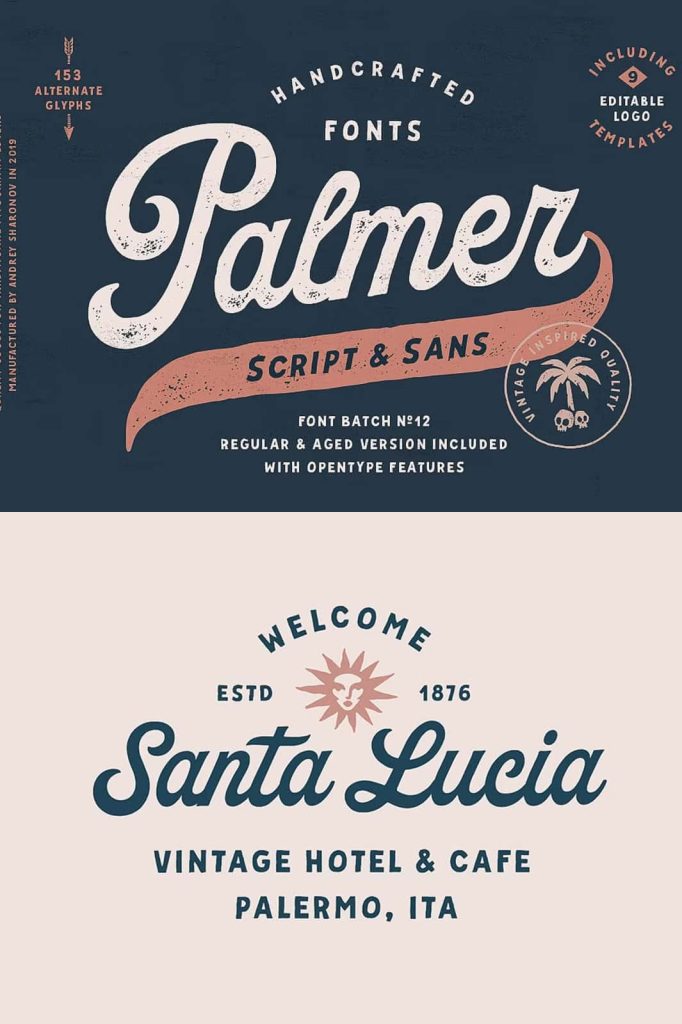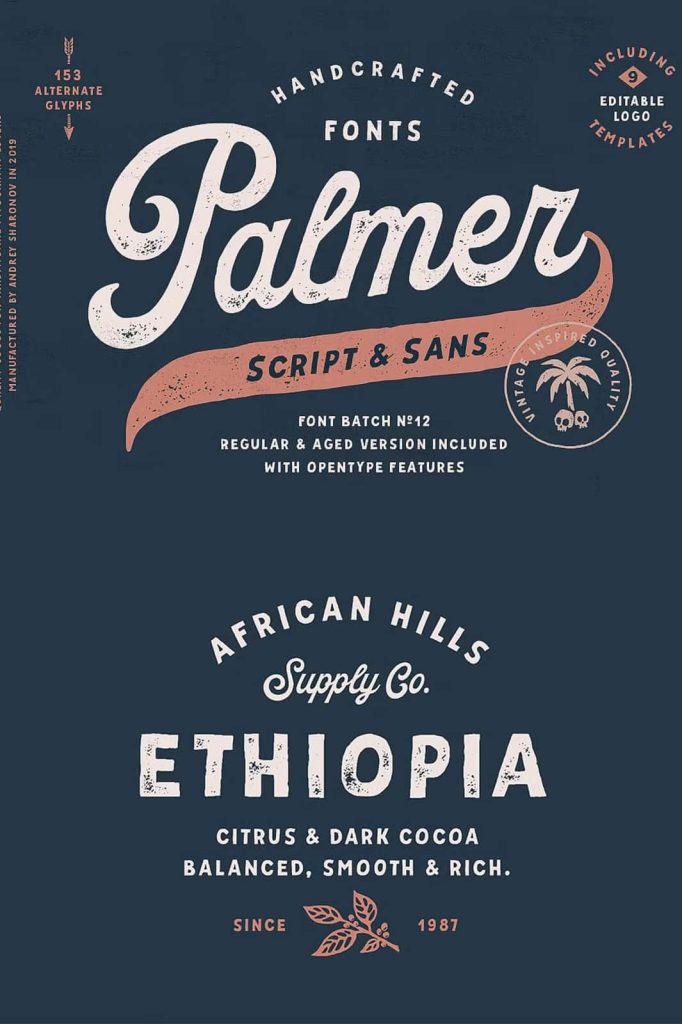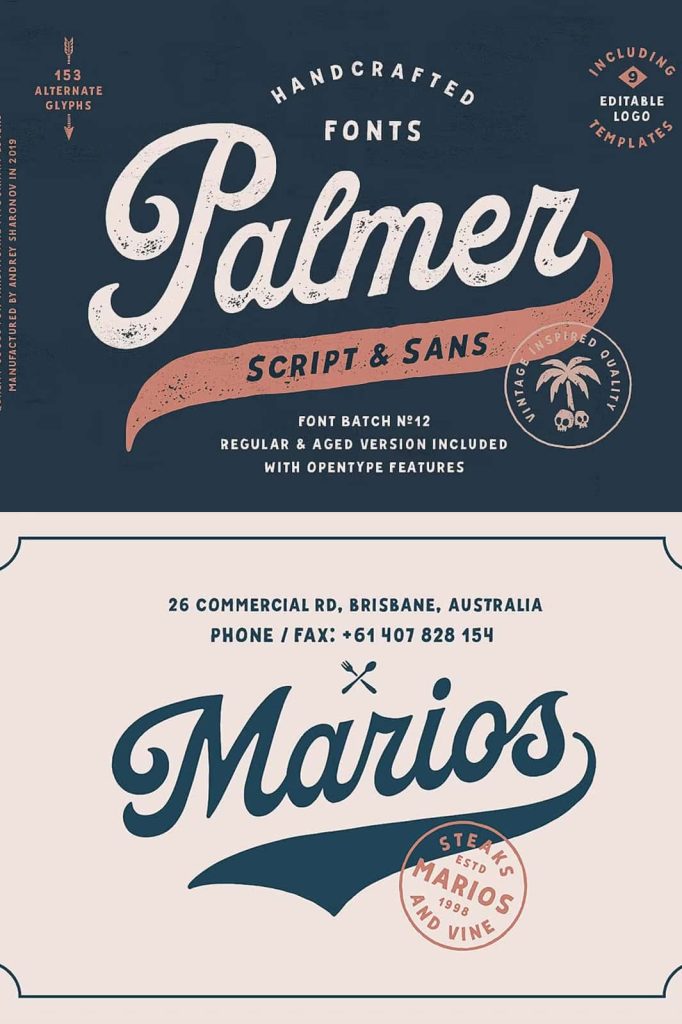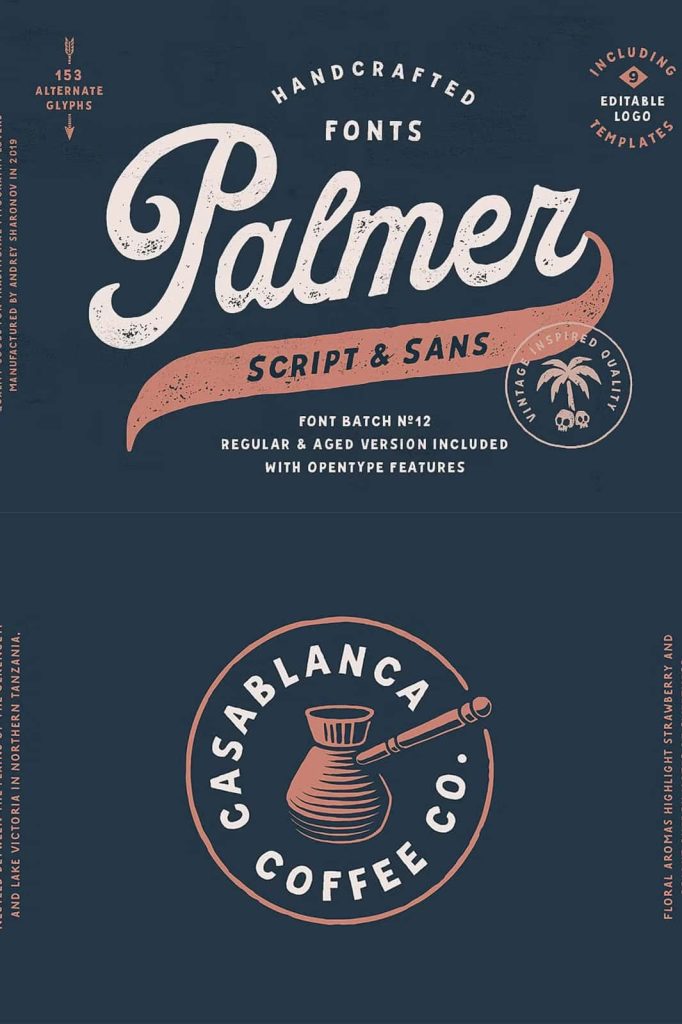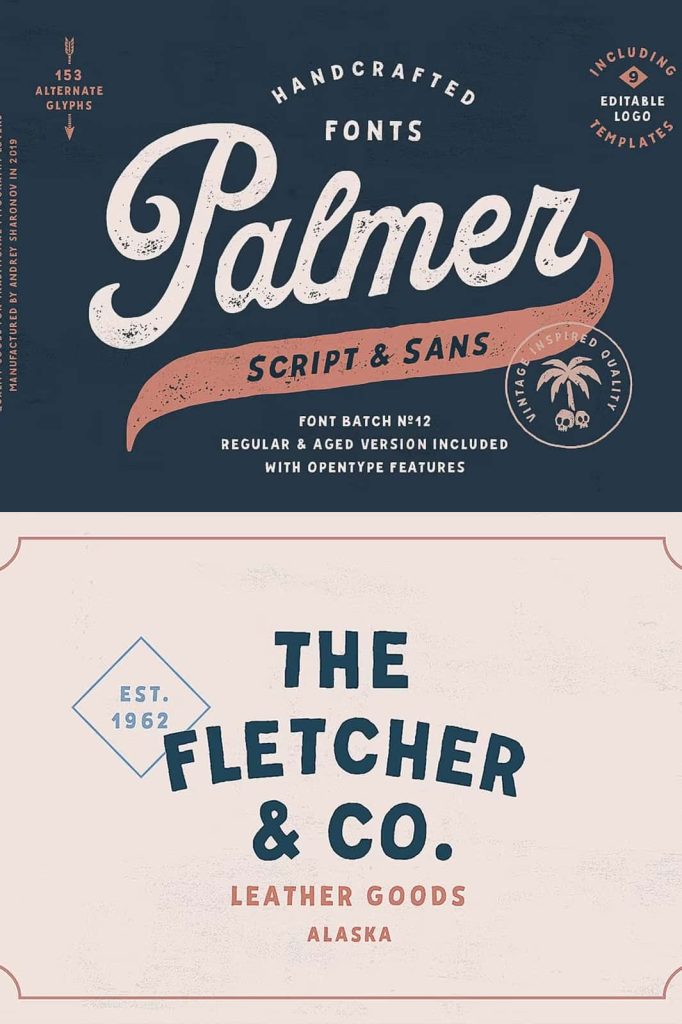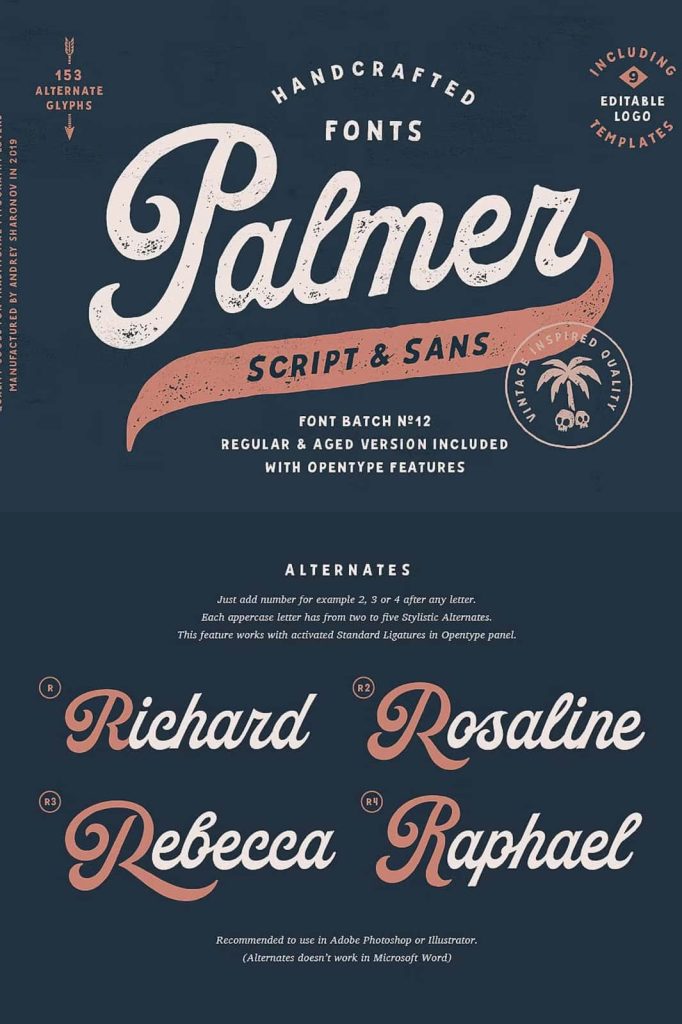
Palmer Script & Sans + Logo TemplateleastedMarch 24, 2025Fonts This pair was inspired by the spirit of the past, when manual labor was common Download